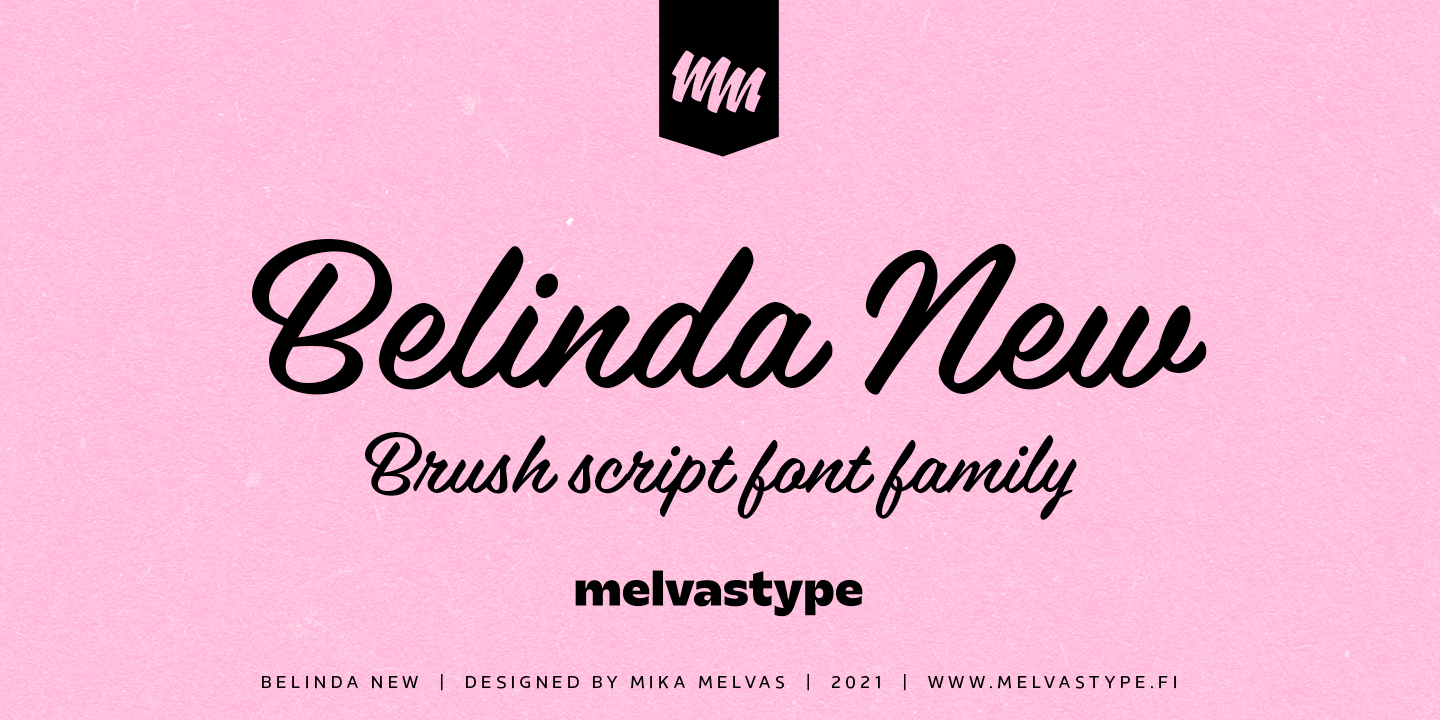
Belinda New Font is perfect for feminine lifestyle brands, beauty salon signage, fashion boutique logos, romantic wedding stationery, spa and wellness materials, women's magazine headers, cosmetic product packaging, and elegant personal branding projects. This graceful typeface brings sophisticated femininity and contemporary elegance to any design requiring refined, approachable typography.
What makes Belinda New Font exciting is its perfect blend of modern sophistication and gentle femininity. The font features soft, rounded letterforms with subtle curves that create a warm, welcoming feeling while maintaining professional credibility. Its balanced proportions and elegant spacing make it highly readable across all applications, from delicate script details to bold headline statements. The typeface's contemporary appeal ensures your designs feel fresh and current while conveying trustworthiness and approachable elegance.
The Belinda New Font family includes Regular, Bold, Light, Italic, and Script variations, each designed to complement different design needs while maintaining the signature elegant character. The family offers extensive language support, special ligatures, and decorative alternates that enhance its versatility for international feminine branding projects. These variants provide comprehensive flexibility for creating cohesive brand identities.
Whether you're designing for beauty brands, lifestyle businesses, or women-focused services, Belinda New Font Free Download delivers the perfect balance of professionalism and feminine appeal. Its contemporary elegance and approachable character make it ideal for communicating trust, sophistication, and modern femininity with genuine warmth and refined visual presence.